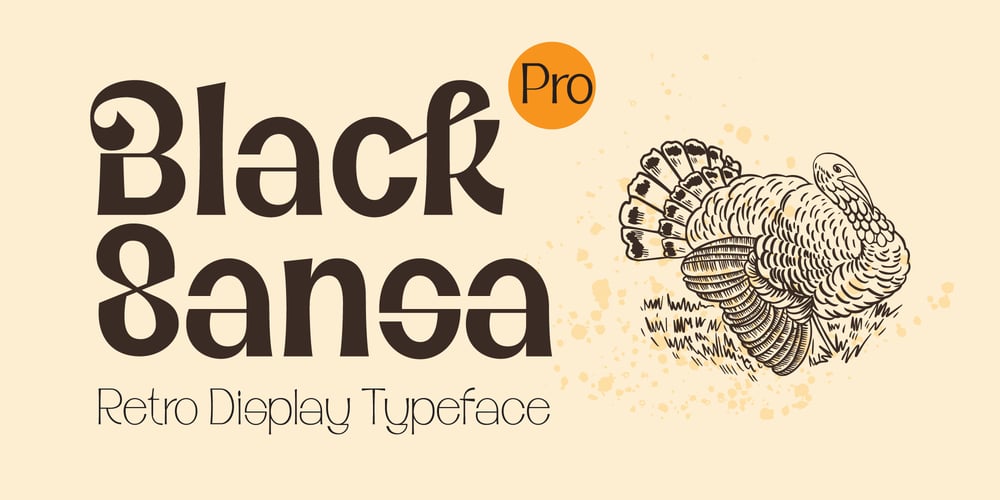
Black Sansa Pro
Black Sansa Pro font
Black Sansa Pro Font Family was designed by Ekayasa and published by Authentype. Black Sansa Pro contains 9 styles and family package options. Black Sansa – Retro display font with a full set of uppercase and lowercase letters, multilingual symbols, numbers, punctuation, stylistic set, and ligatures. Black Sansa retro display font style for retro poster, magazine, retro beauty branding design in vintage style suitable for your retro design concept.Features: Simple installations, accessible in Adobe Illustrator, Adobe Photoshop, Adobe InDesign, even work on Microsoft Word. PUA Encoded Characters – Fully accessible without additional design software. Fonts include multilingual support for; ä ö ü Ä Ö Ü ß ¿ ¡ ____ PLEASE NOTE Most of the fonts require advanced graphic software that supports Open Type Features like Adobe (Illustrator, InDesign, Photoshop), Affinity (Photo, Designer, Publisher), Corel Draw, or similar software.Image used: All photographs/pictures/logo/vector used in the preview are not included, they are intended for illustration purposes only.Thank youHope you enjoy our font!